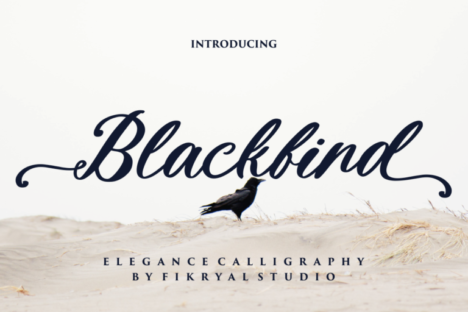
- Blackbird – Elegance Calligraphy Font
Blackbird
The quick brown fox jumps over the lazy dog
Blackbird is a beautiful script font perfect for crafting, branding, invitation, stationery, wedding designs, social media posts, advertisements, product packaging, product designs, label, photography, watermark, special events, or anything.